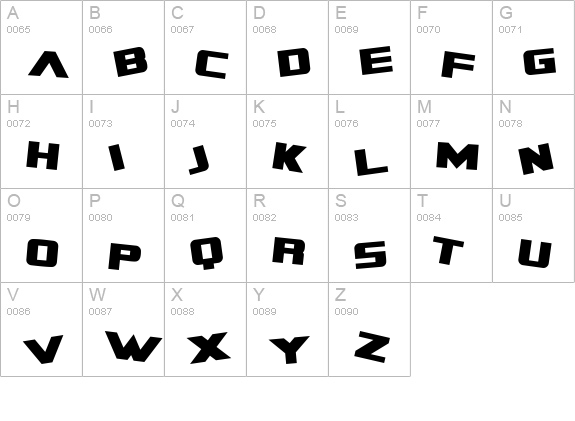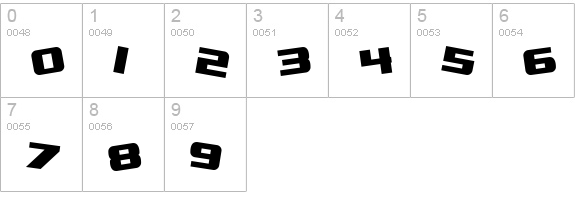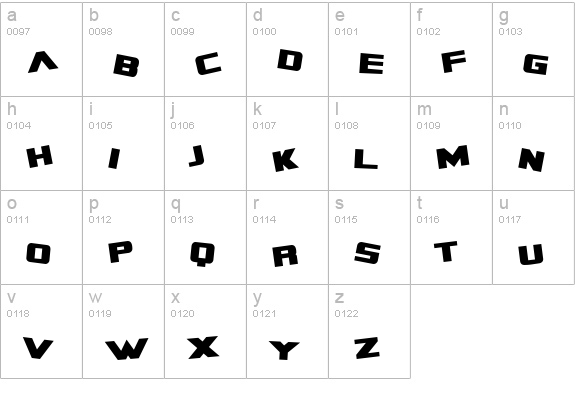
SF Zero Gravity Bold Font Details
SF Zero Gravity Bold is a strong, high-contrast variant in the SF typeface family \xE2\x80\x94 well suited to headlines, attention-grabbing titles, and strong calls-to-action.
Introducing SF Zero Gravity Bold, a captivating typeface that defies conventional boundaries and effortlessly transports your designs to new heights. This font is the epitome of modernity, with its sleek lines and futuristic appeal. Its bold weight demands attention and exudes confidence, making it the perfect choice for headlines, logos, and eye-catching titles. SF Zero Gravity Bold's unique design features a harmonious blend of geometric shapes and sharp edges, creating a sense of weightlessness and intrigue. The letters seemingly float in space, creating an illusion of zero gravity, making this font a true standout in any project. But what truly sets SF Zero Gravity Bold apart is its captivating sense of freedom. This font liberates your creativity, allowing your ideas to soar and break free from the constraints of the ordinary. Its bold and impactful presence makes a statement, commanding attention and leaving a lasting impression. And the best part? SF Zero Gravity Bold is freely available to download at FontsMarket.com. This means you can effortlessly elevate your designs without any cost or limitations. It's a font that empowers you to explore endless possibilities, unrestricted by budget constraints. Whether you're designing a futuristic sci-fi poster, a tech-inspired website, or a visually stunning advertisement, SF Zero Gravity Bold will effortlessly elevate your work to new levels of sophistication and impact. So why wait? Embrace the freedom and unleash your creativity with SF Zero Gravity Bold, the font that defies gravity and liberates your design potential. Download it now, exclusively at FontsMarket.com.